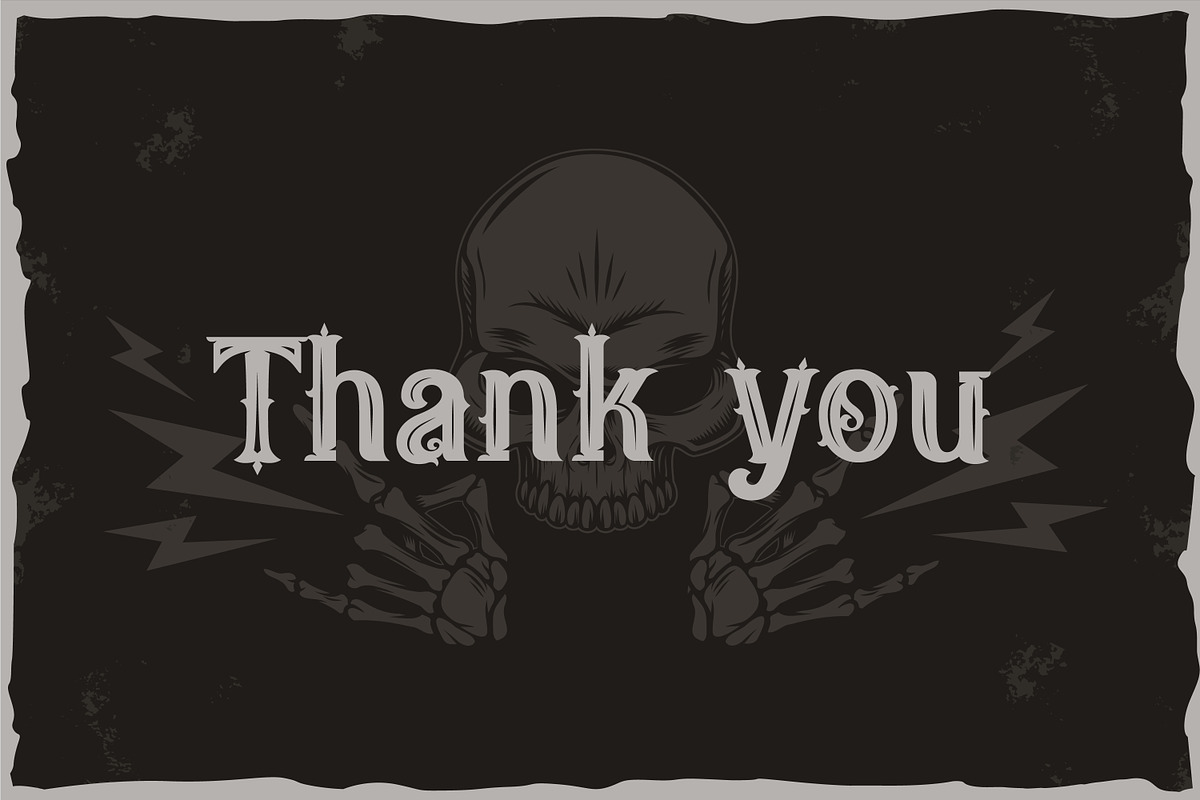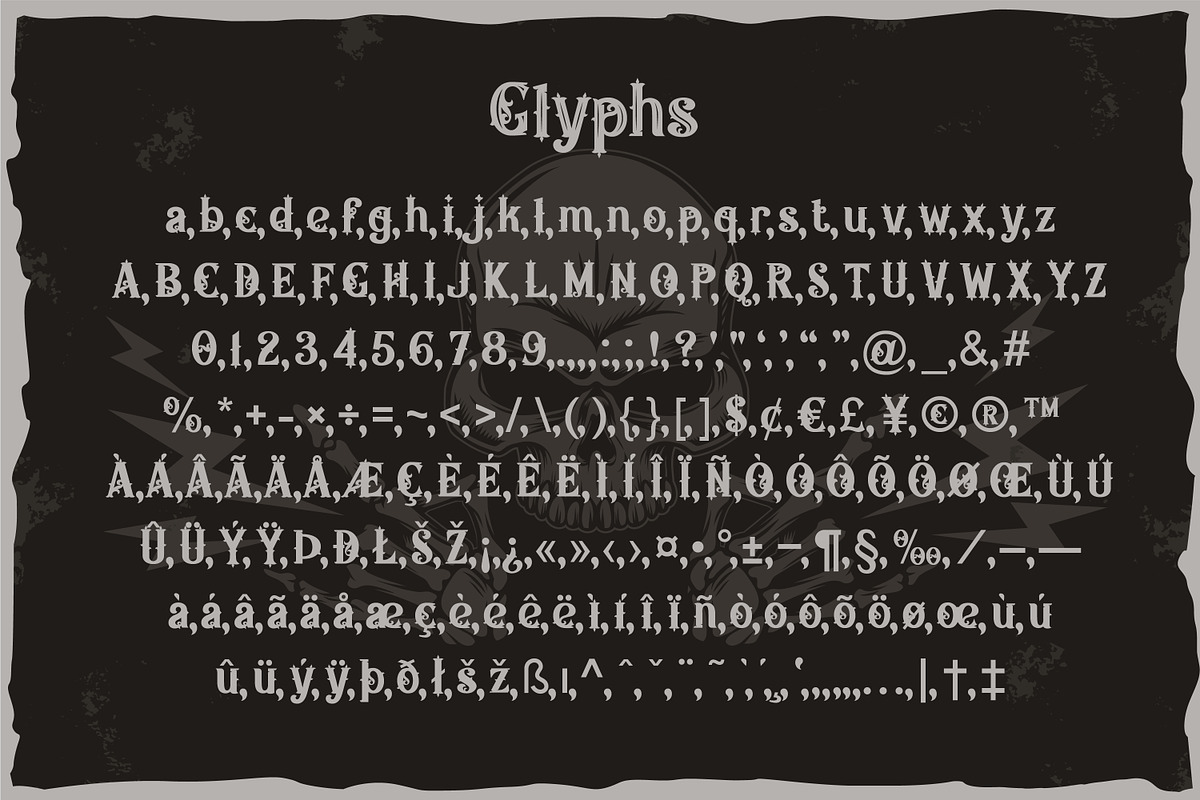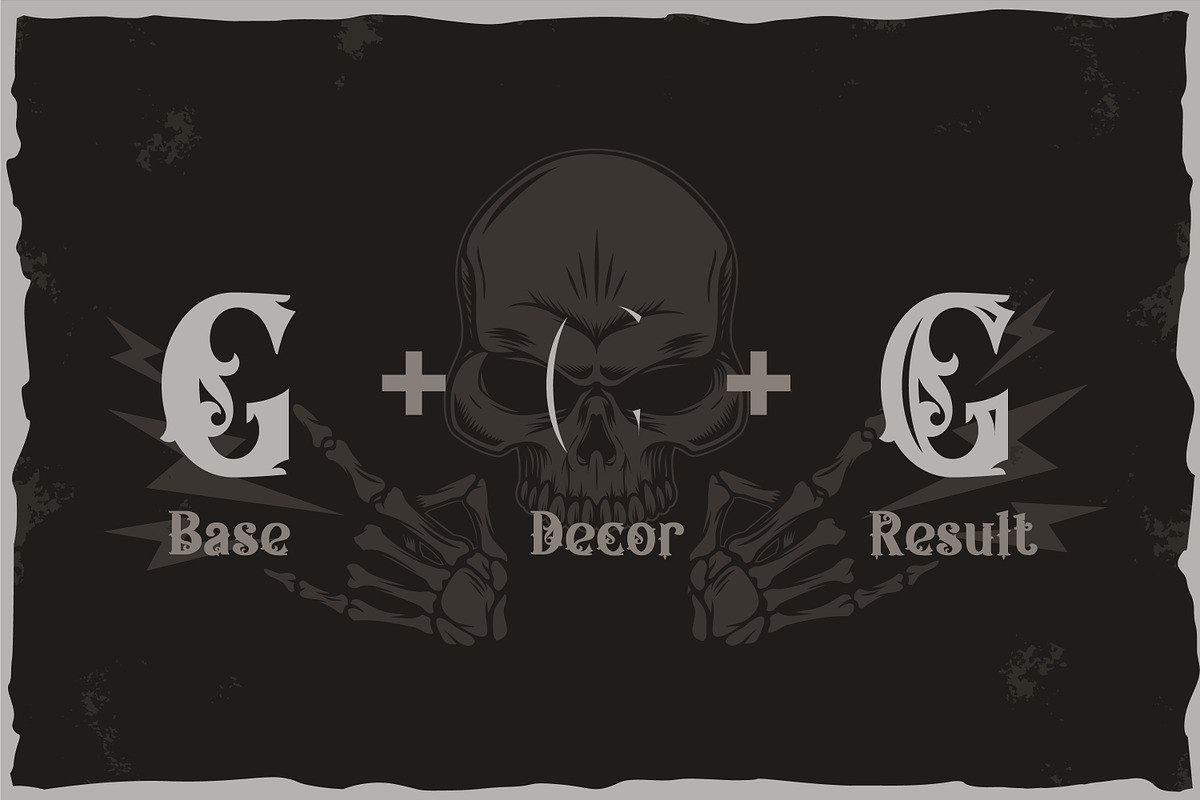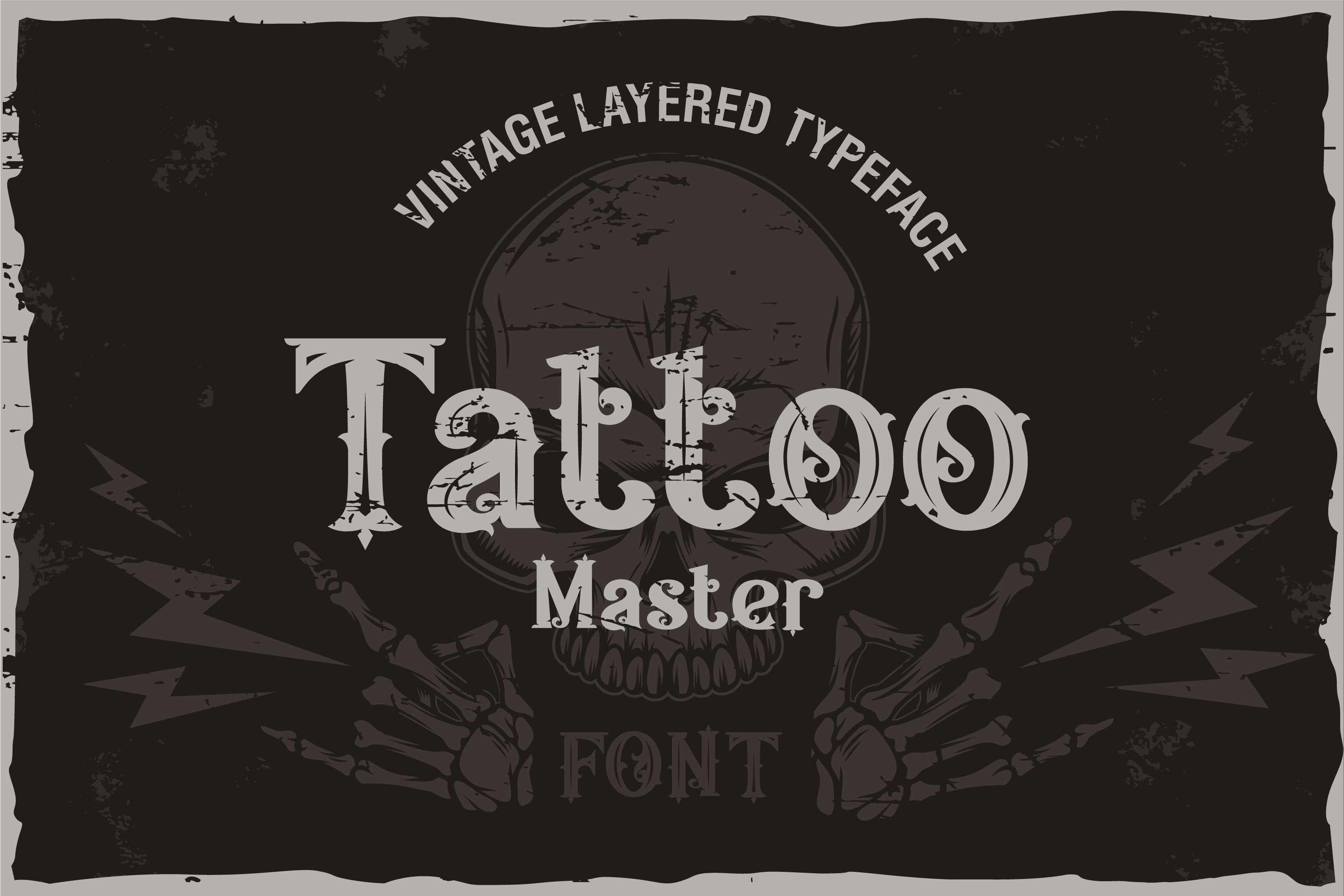
Tattoo Master - vintage layered font
Tattoo Master. Vintage multi-layered font. The font is based on a combination of rigid contours and vintage monograms. It is well suited for the design of tattoos, headlines, products and more.